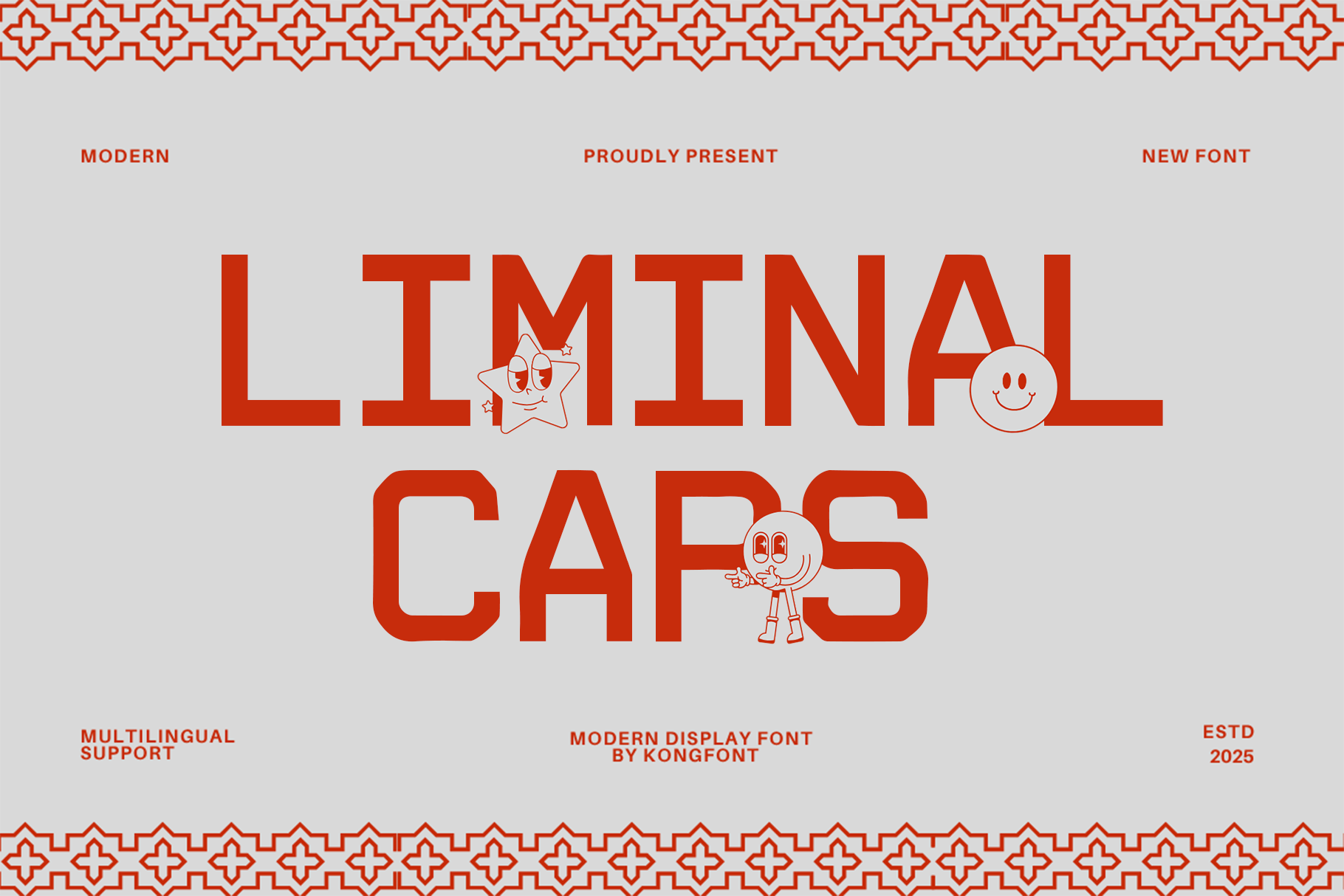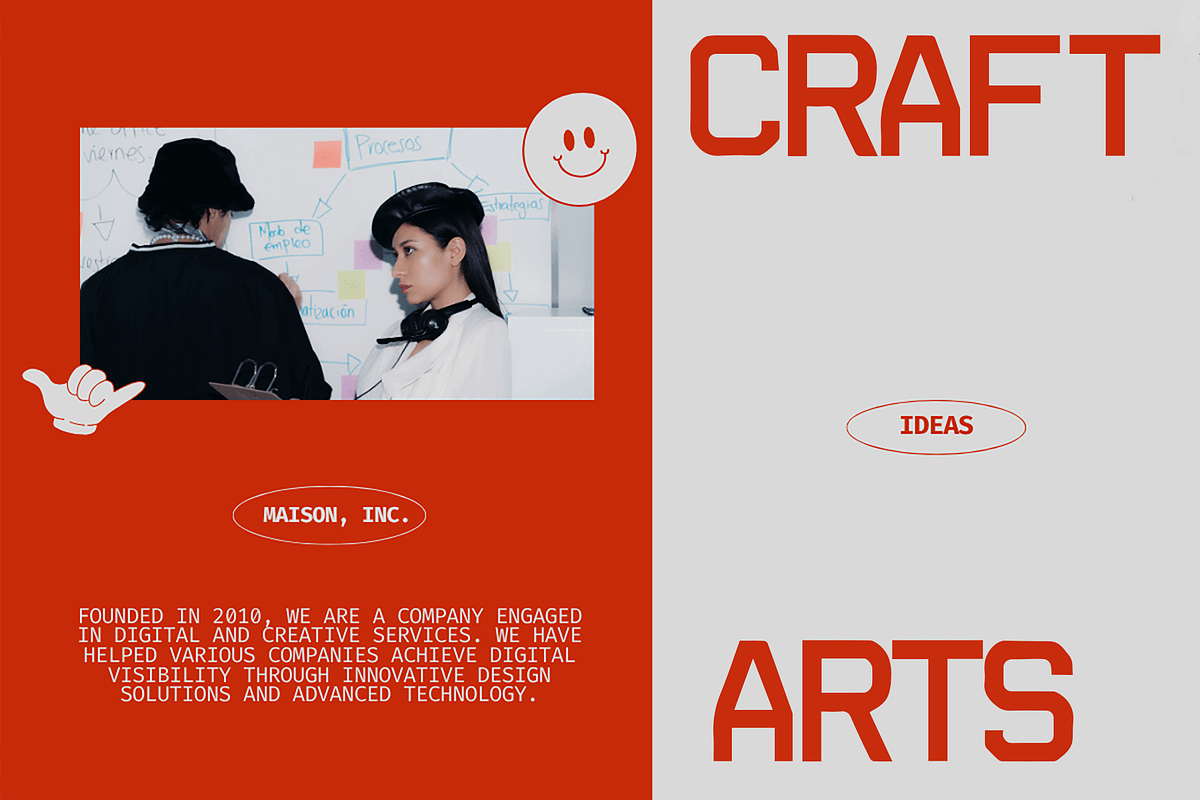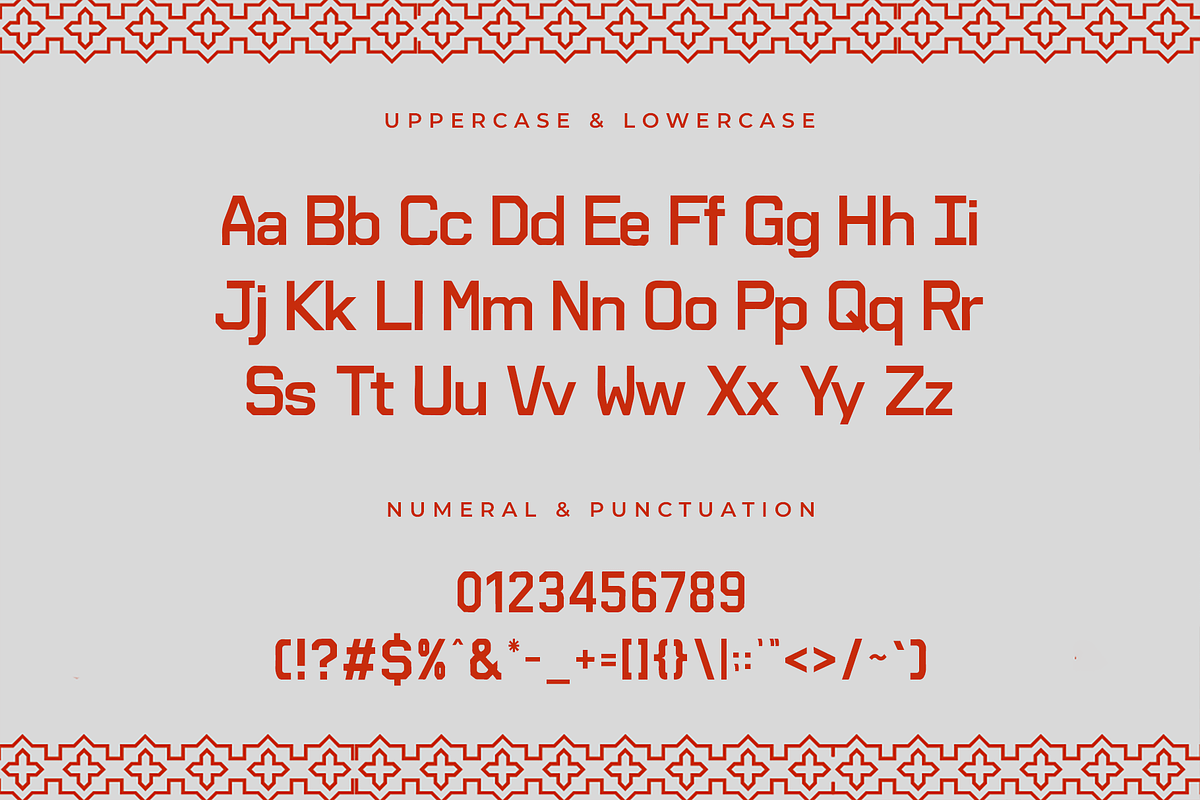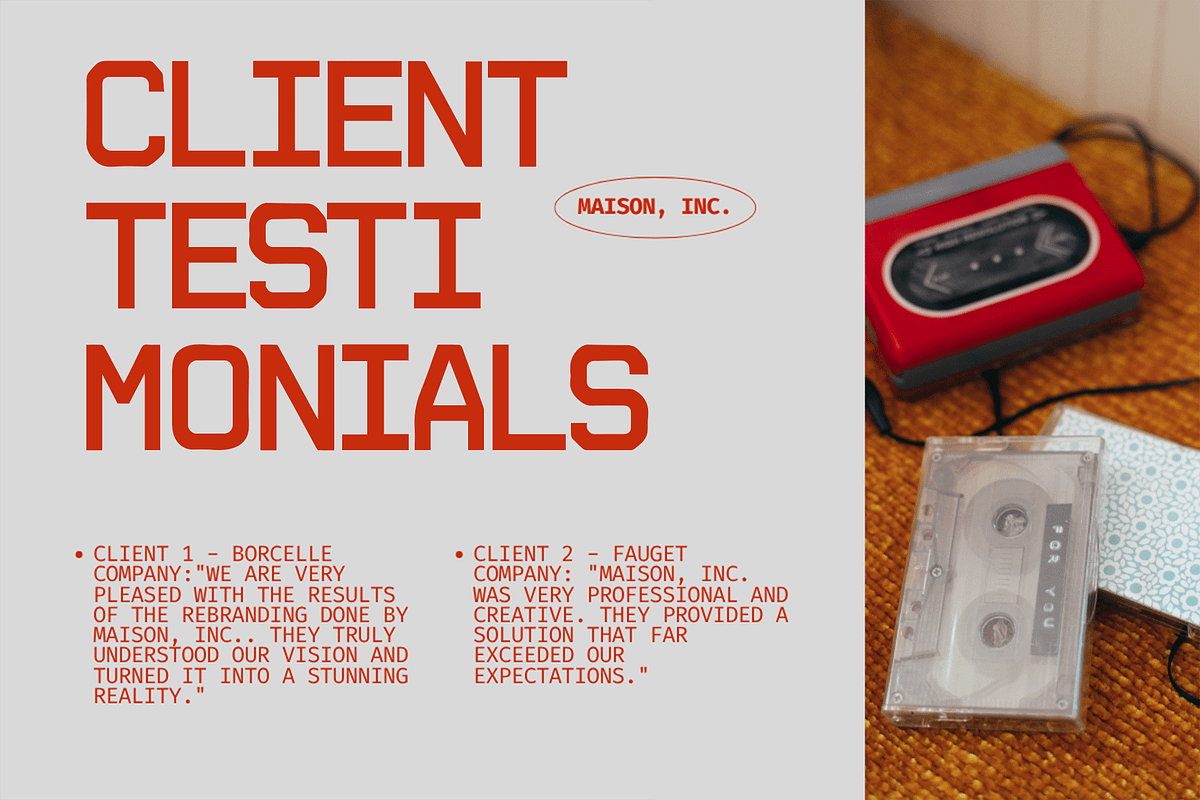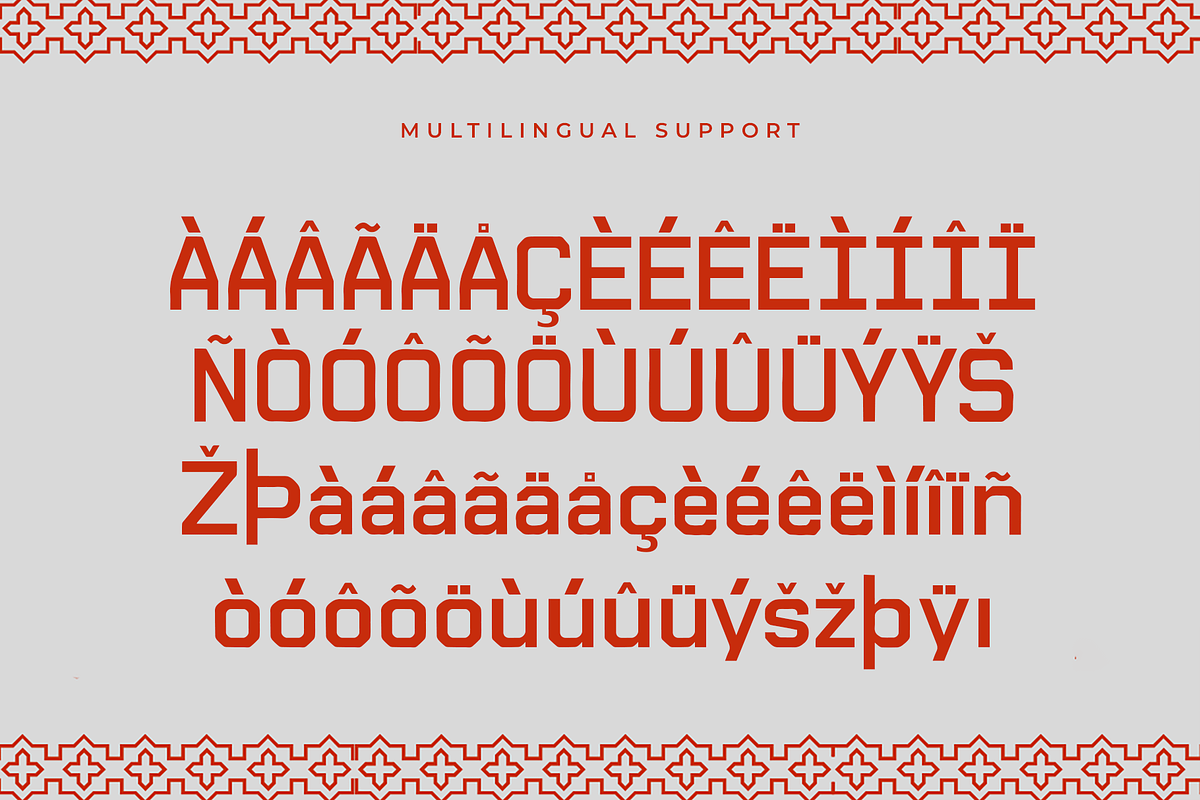
Liminalcaps – Modern Display Font
Liminalcaps is a striking modern display font designed to make a bold statement. With its sharp lines, clean angles, and uppercase-only character set, this font is perfect for projects that demand a strong visual identity and high-impact presence.
Whether you're creating futuristic branding, standout headlines, editorial layouts, or eye-catching posters, Liminalcaps delivers a cutting-edge look with refined minimalism. The geometric construction and distinct letterforms are crafted to be both readable and memorable, making it an ideal choice for designers seeking modern precision and visual power.
Perfect for tech-inspired designs, branding assets, logos, fashion layouts, and digital interfaces—Liminalcaps turns any text into a bold visual anchor.